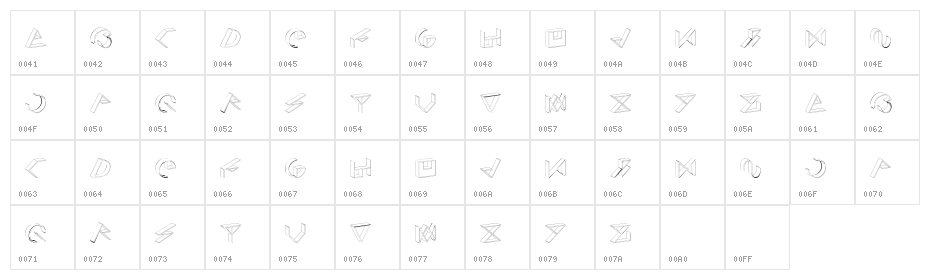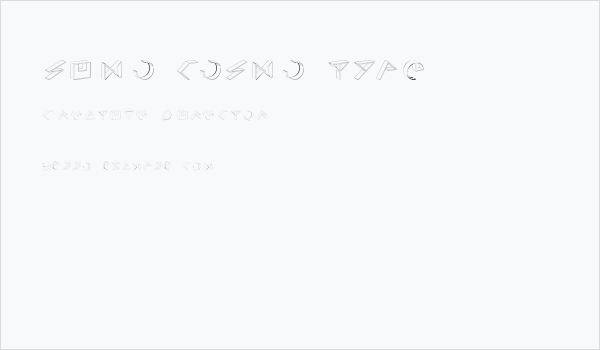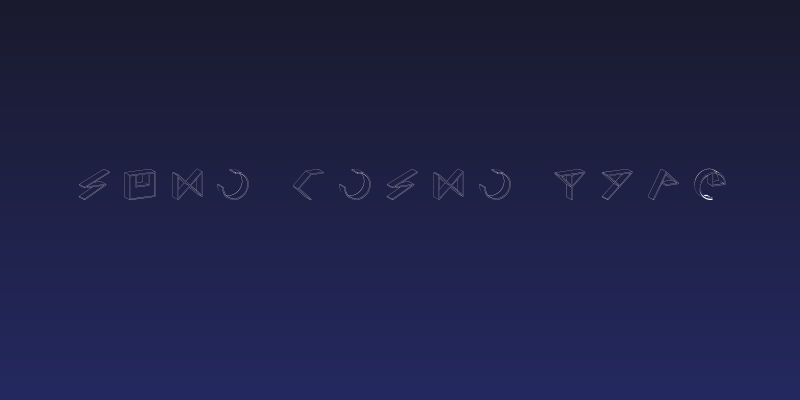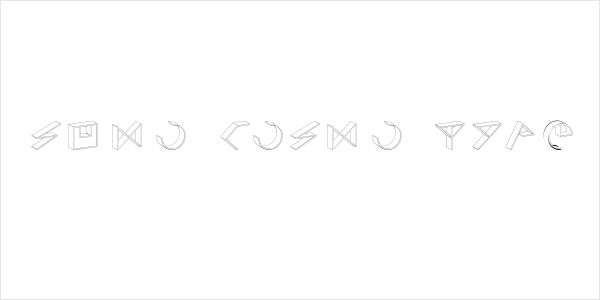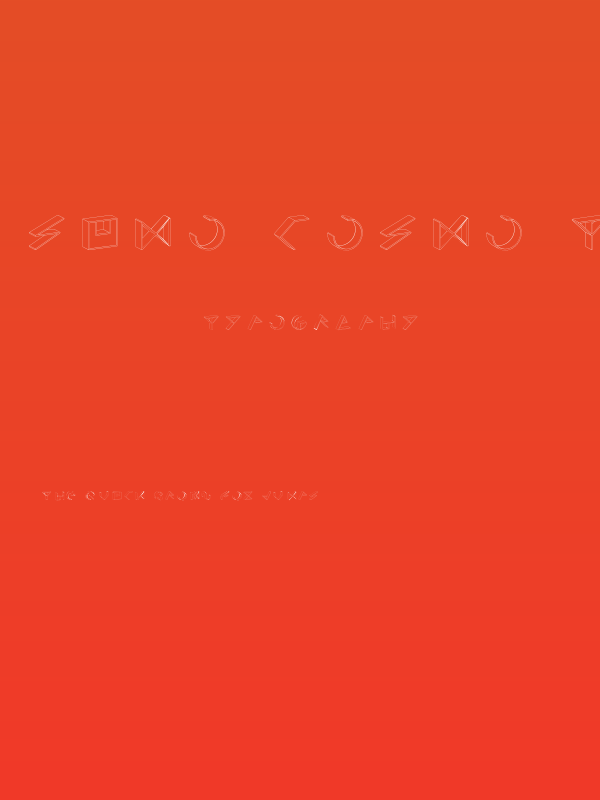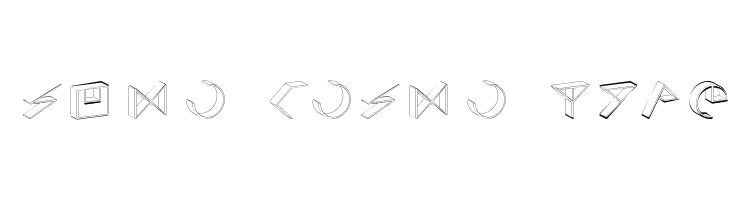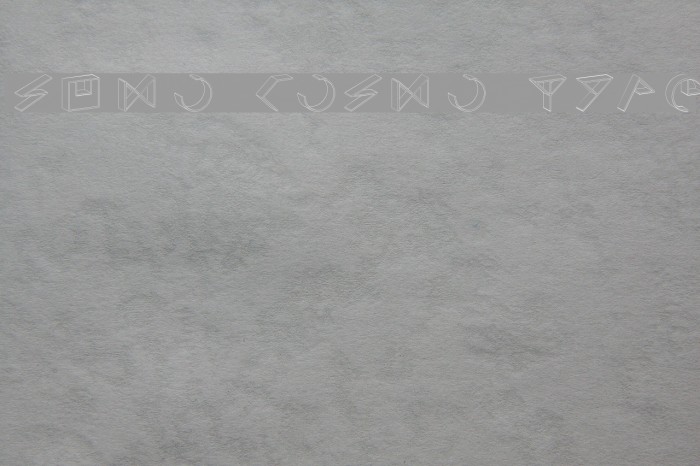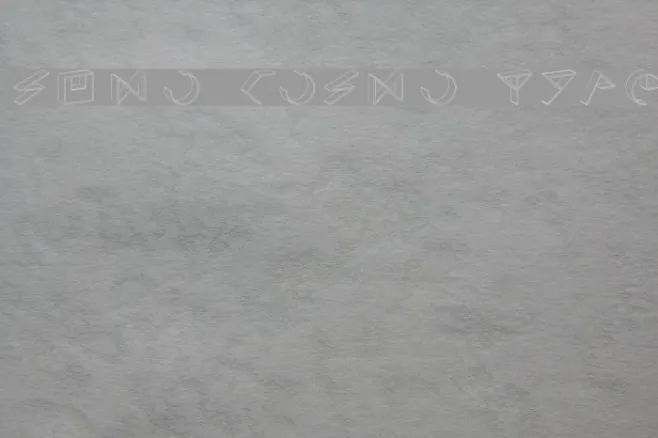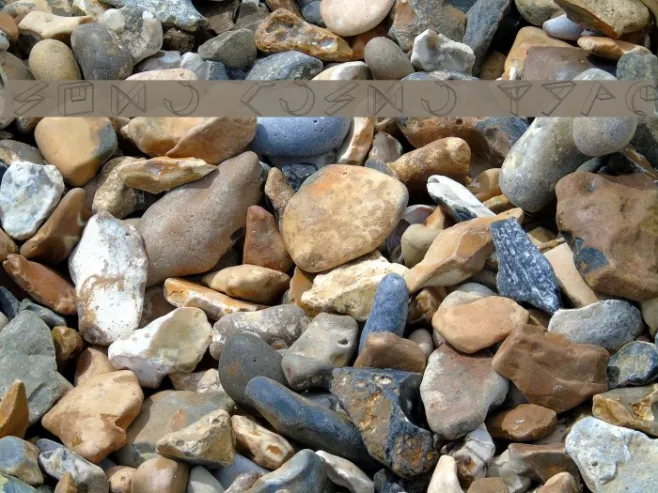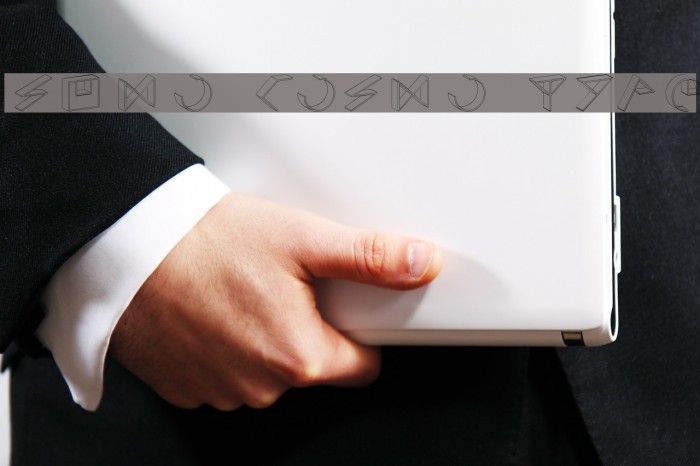
simo cosmo type Font
simo cosmo type Description
This font features a unique, futuristic design with a three-dimensional effect. Each character is constructed with angular lines and geometric shapes, giving it a distinct, modern appearance. The letters are outlined with a hollow interior, creating a sense of depth and space. This style is reminiscent of architectural blueprints or wireframe models, making it visually striking and ideal for creative projects. The font maintains consistency across uppercase and lowercase letters, as well as numbers and special characters, ensuring a cohesive look. Its intricate design may not be suitable for small text but excels in larger formats where its details can be fully appreciated.
| Proposed Projects | Ideal for sci-fi themed designs, tech branding, posters, and digital art projects. |